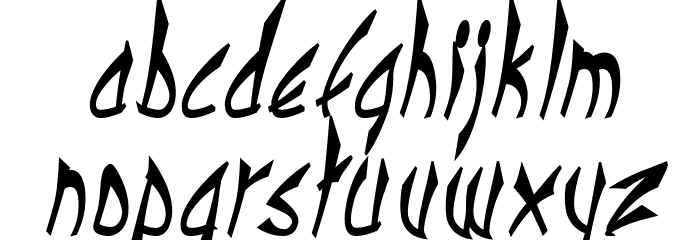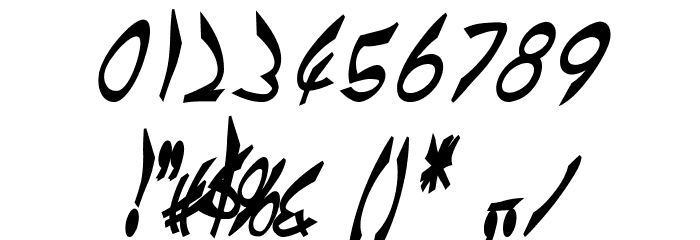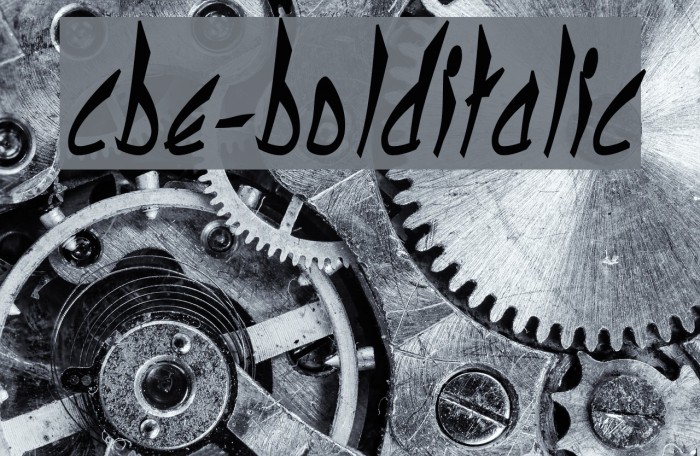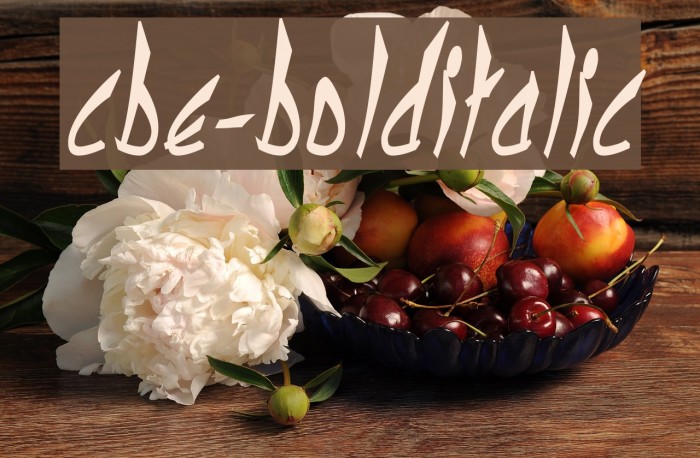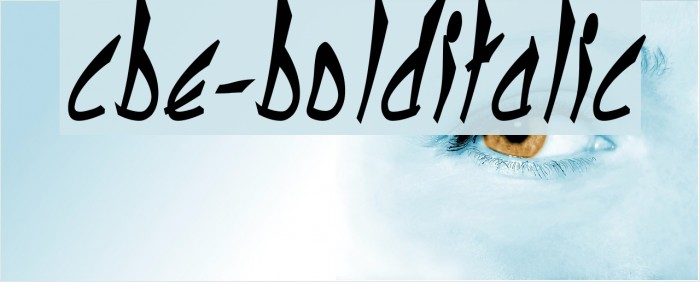
cbe-BoldItalic Font
This font exhibits a bold and italicized style with a dynamic and energetic appearance. The characters are slanted, giving a sense of movement and fluidity. The strokes are thick and bold, creating a strong visual impact. The overall design is expressive, with unique and artistic letterforms that stand out. The uppercase and lowercase letters maintain a consistent style, while the numerals and special characters complement the overall aesthetic. This font is suitable for projects that require a bold and artistic touch.
A bold, italicized font with dynamic and expressive letterforms.